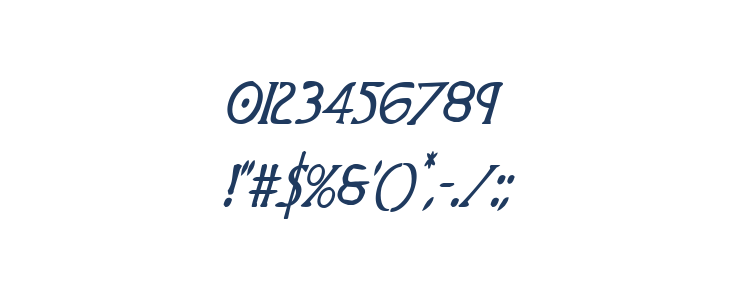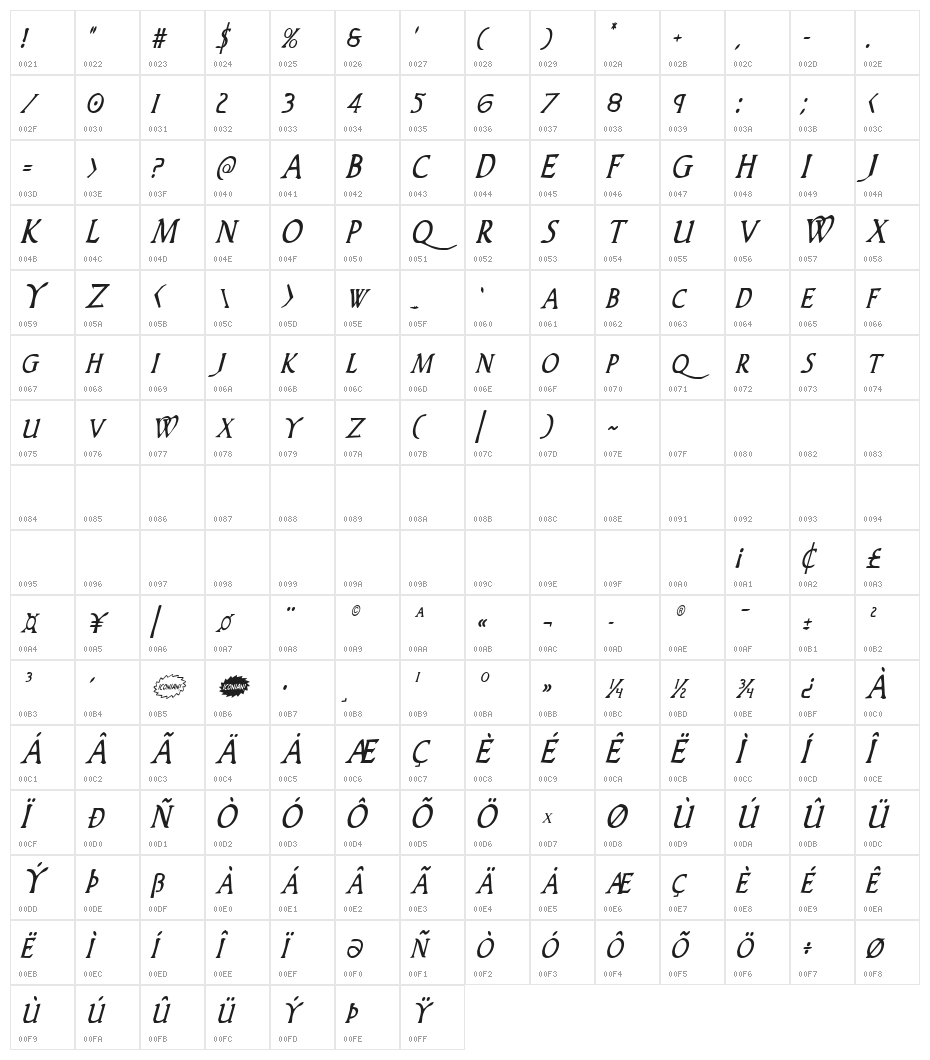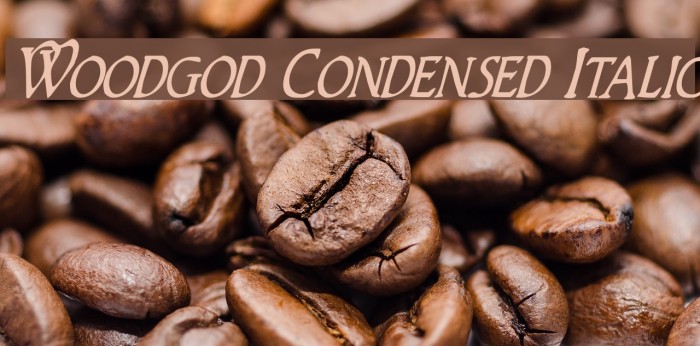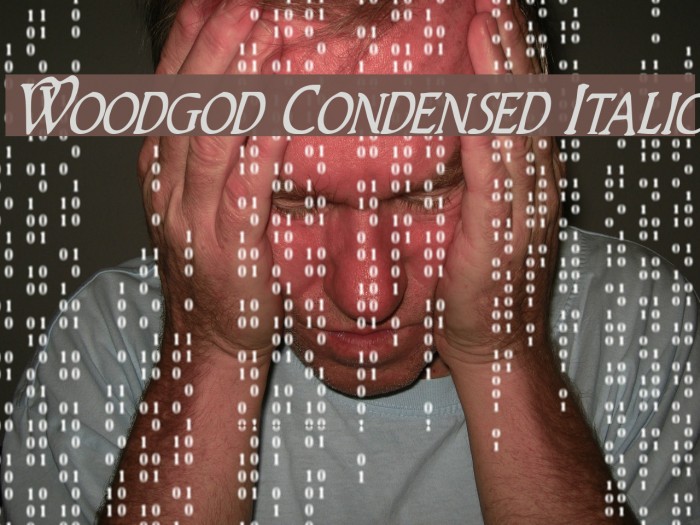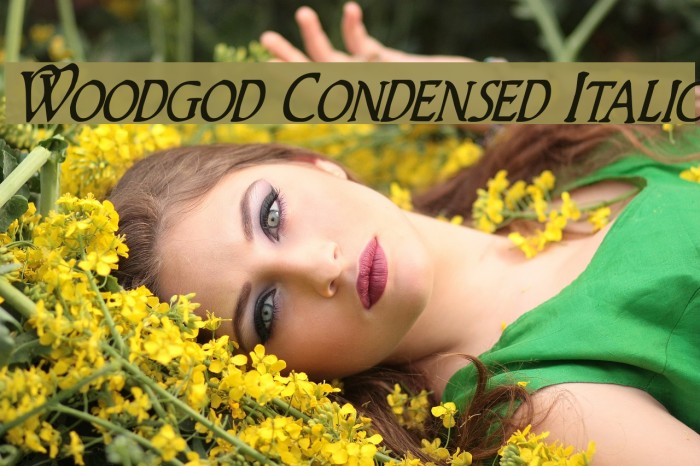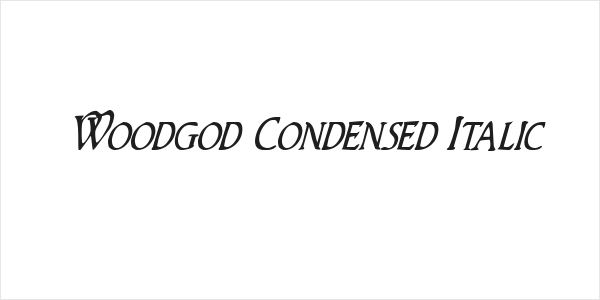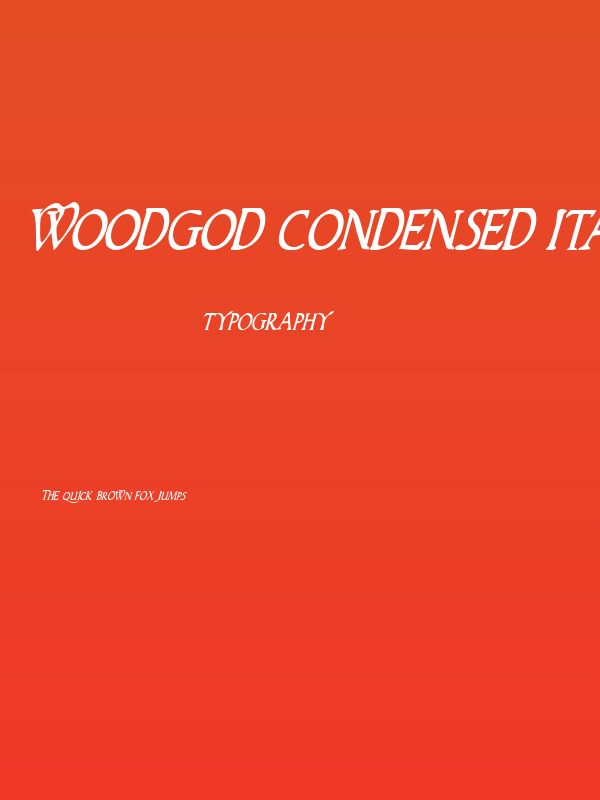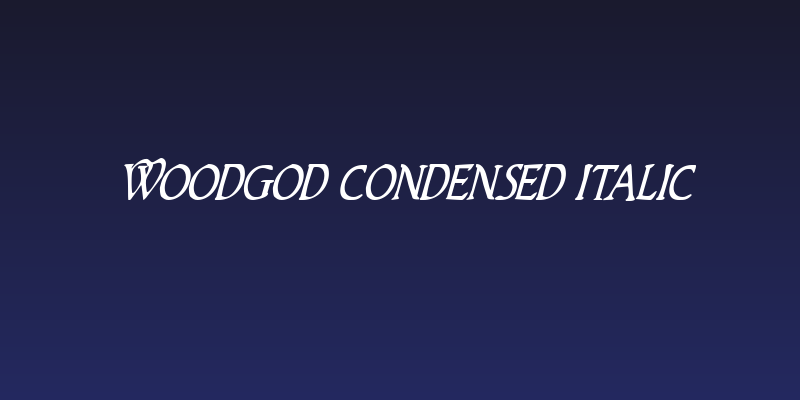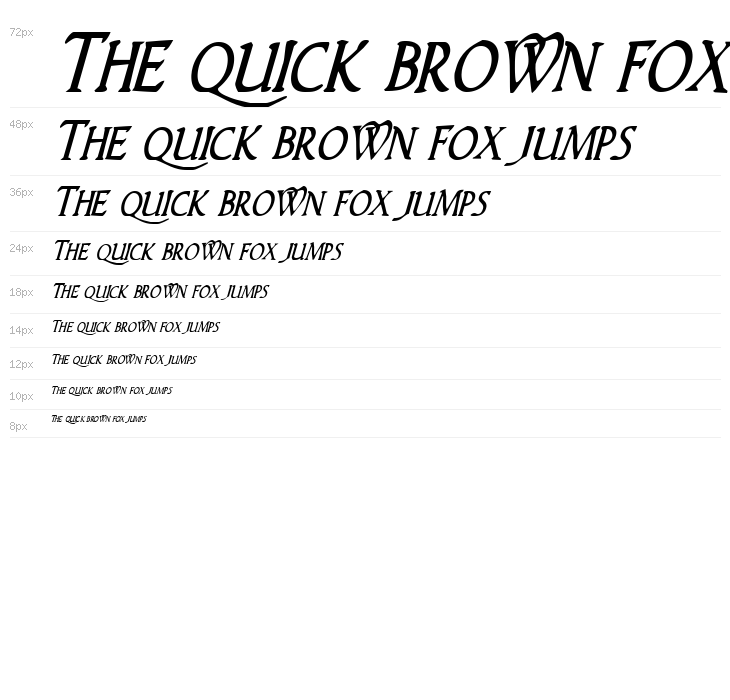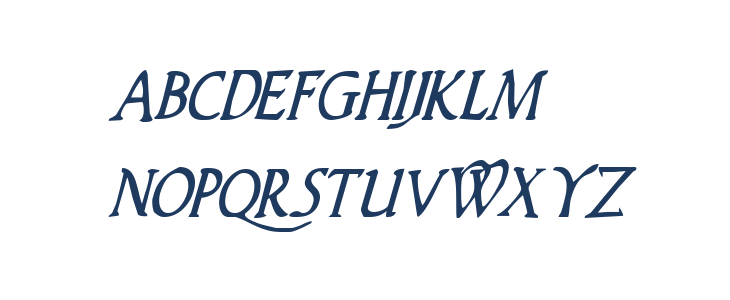
Woodgod Condensed Italic Font
Woodgod Condensed Italic Description
This font features a dynamic and elegant style with a condensed and italicized form. The characters have a flowing, cursive quality, giving them a sense of movement and grace. The strokes are moderately thick, with a slight variation that adds to the font's expressive nature. The uppercase letters are particularly striking, with elongated forms and distinctive curves. The lowercase letters maintain a consistent style, complementing the uppercase with their own unique flair. The numerals are clear and legible, while the special characters are designed to match the overall aesthetic. This font exudes a sense of sophistication and creativity, making it suitable for a variety of design projects.
| Use Case | Logos, Headlines, Artistic designs |
| Proposed Projects | Ideal for branding, invitations, posters, and artistic projects requiring a sophisticated touch. |